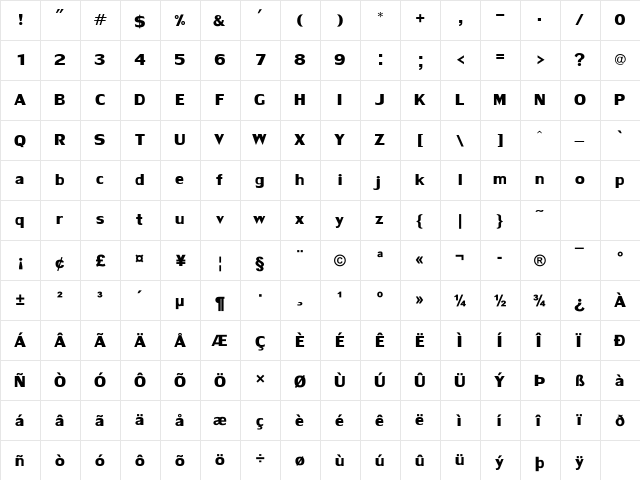
LilyUPC Bold
Design Context for LilyUPC Typeface
LilyUPC takes a measured approach to typography — its balanced proportions and neutral character make it a reliable workhorse for both digital and print work. Its bold stroke weight gives it real presence on the page.